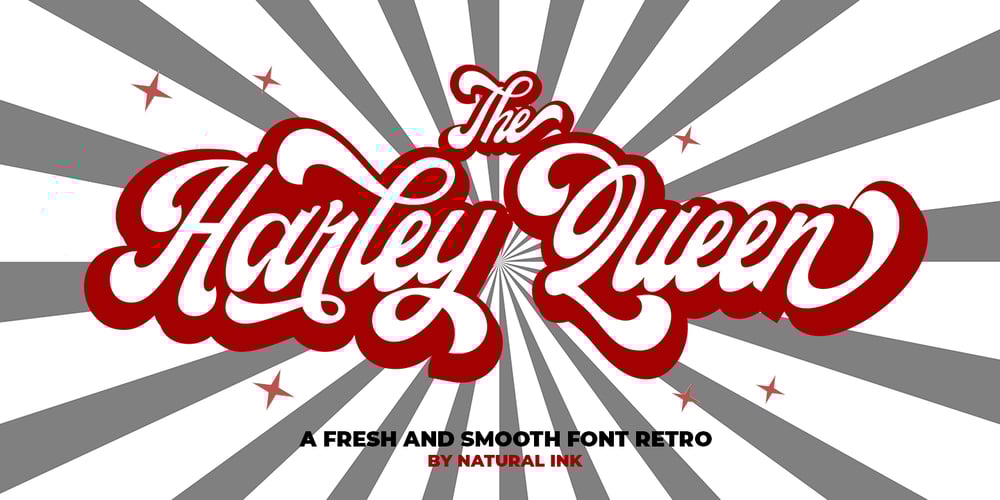
The Harley Queen
The Harley Queen font
The Harley Queen Font Family was designed by Arif Gunawan and published by Natural Ink. The Harley Queen contains 2 styles and family package options. Harley Queen is a fun, vintage script font. It can be used for various purposes such as logos, wedding invitations, t-shirts, letterheads, signage, news, posters, badges, and more. Harley Queen Script features 300+ glyphs and extruded font, alternate characters, ligatures, and swash support. To enable the OpenType Stylistic alternates, you need a program that supports OpenType features such as Adobe Illustrator CS, Adobe Indesign & CorelDraw X6-X7. How to get access alternate glyphs from open type fonts: http://youtu.be/iptSFA7feQ0 There are additional ways to access alternates/swashes, using Character Map (Windows), Nexus Font (Windows), Font Book (Mac) or a software program such as PopChar (for Windows and Mac). How to access all alternative characters, using Windows Character Map with Photoshop: https://www.youtube.com/watch?v=Go9vacoYmBw Need help? If you need help or advice, please contact me by e-mail. Thank you!